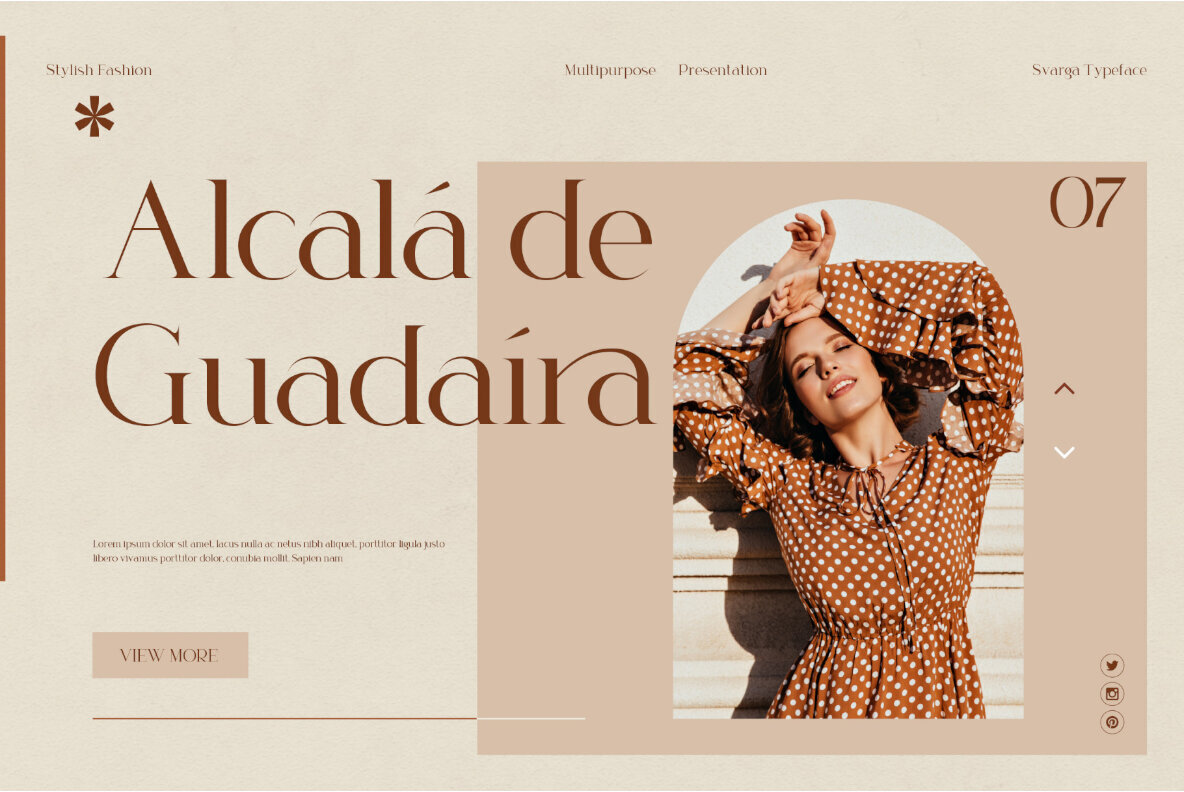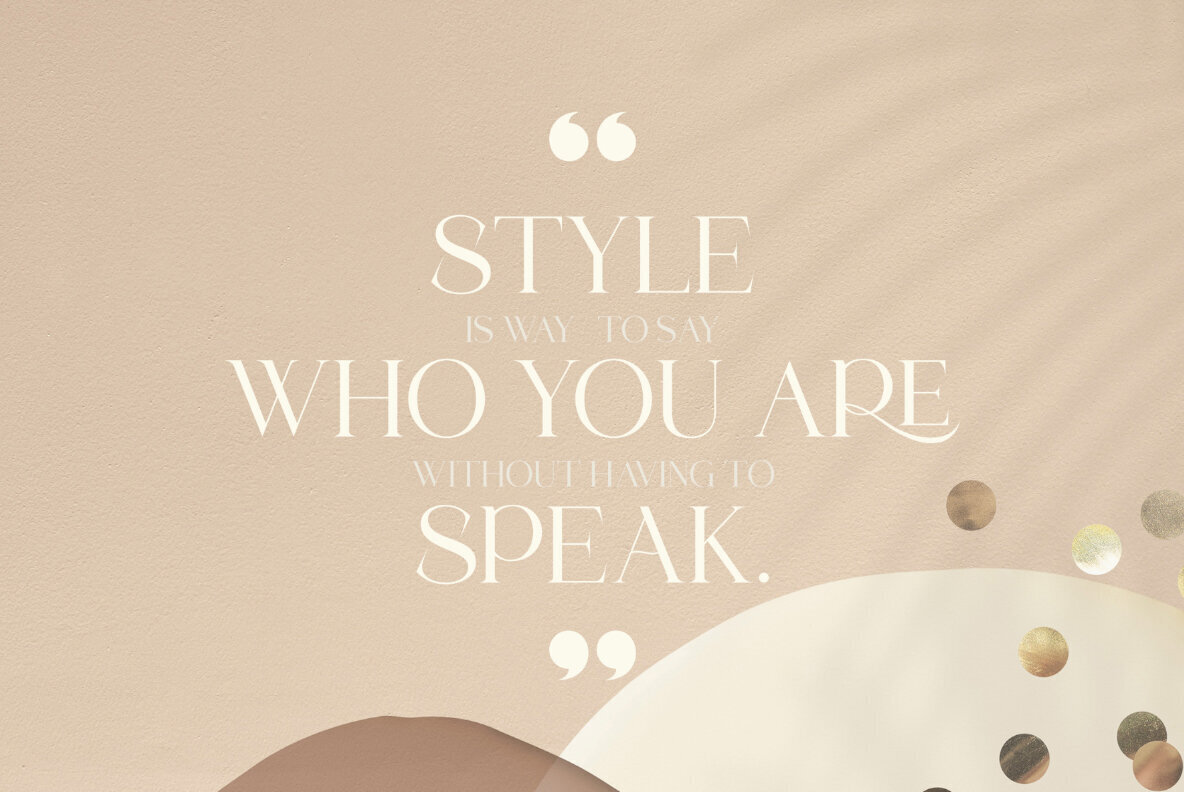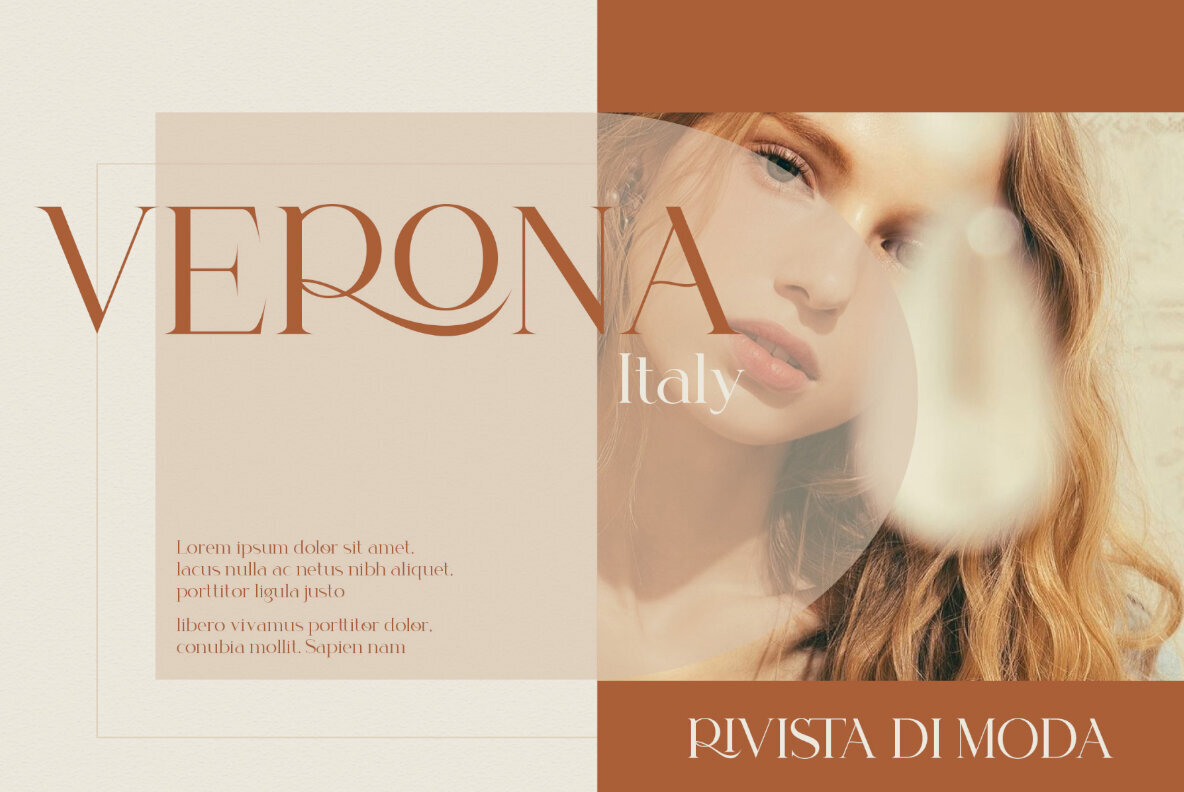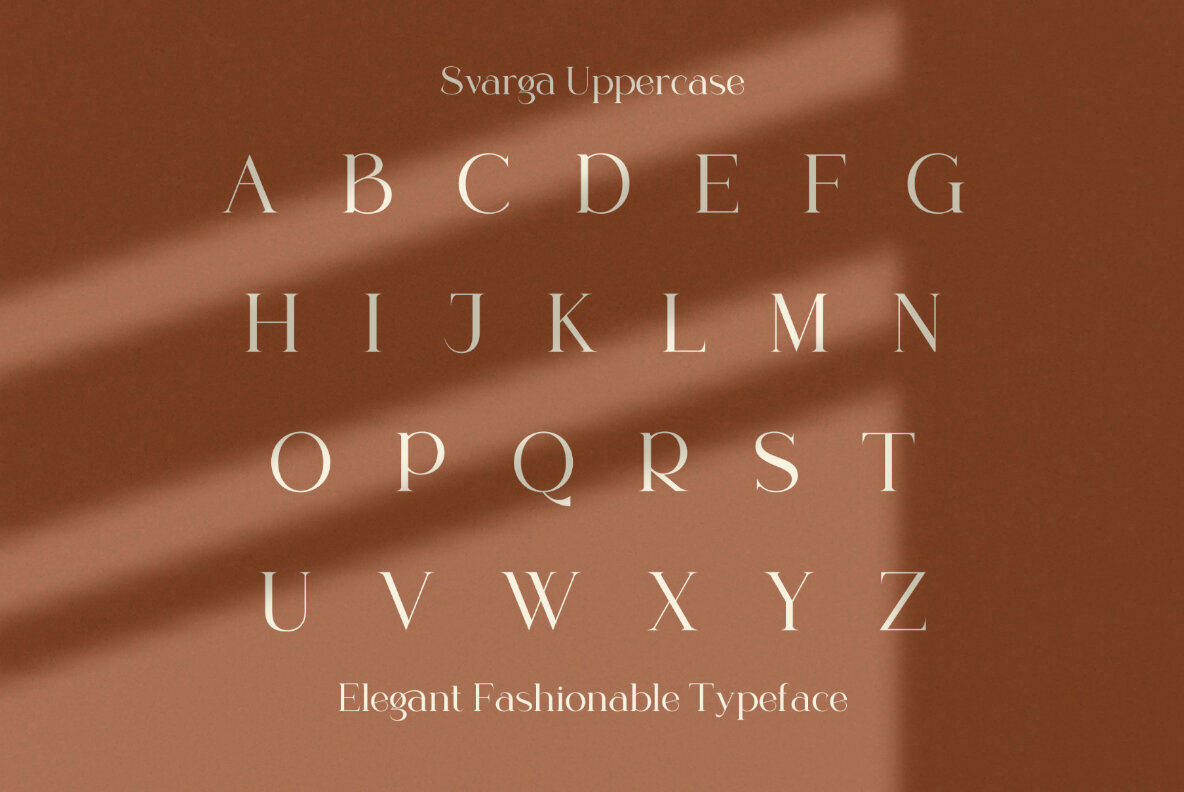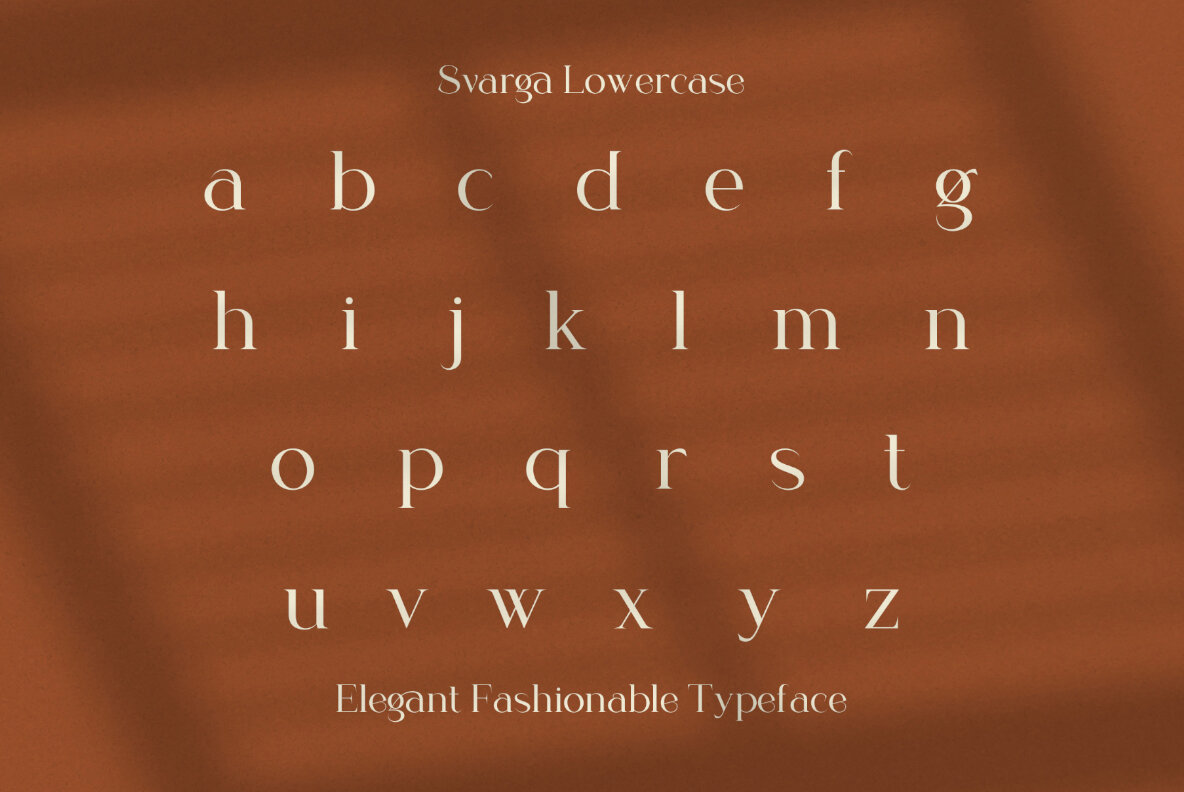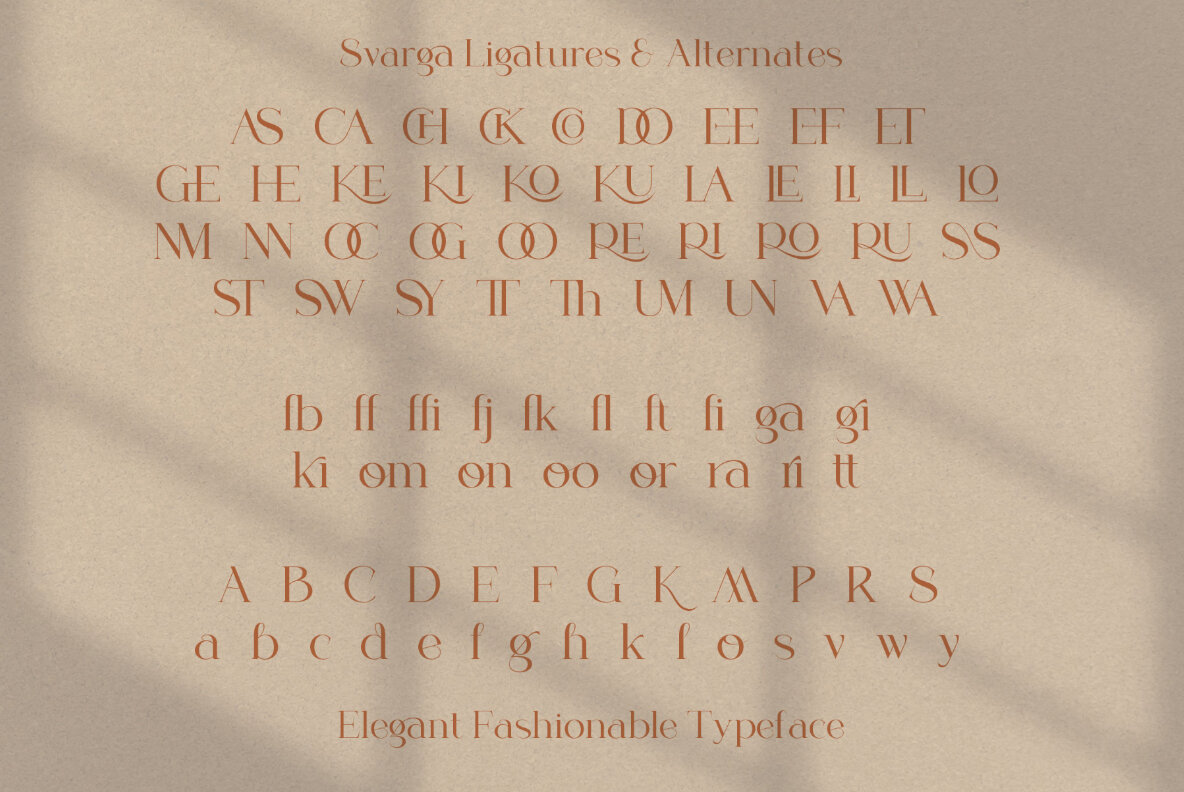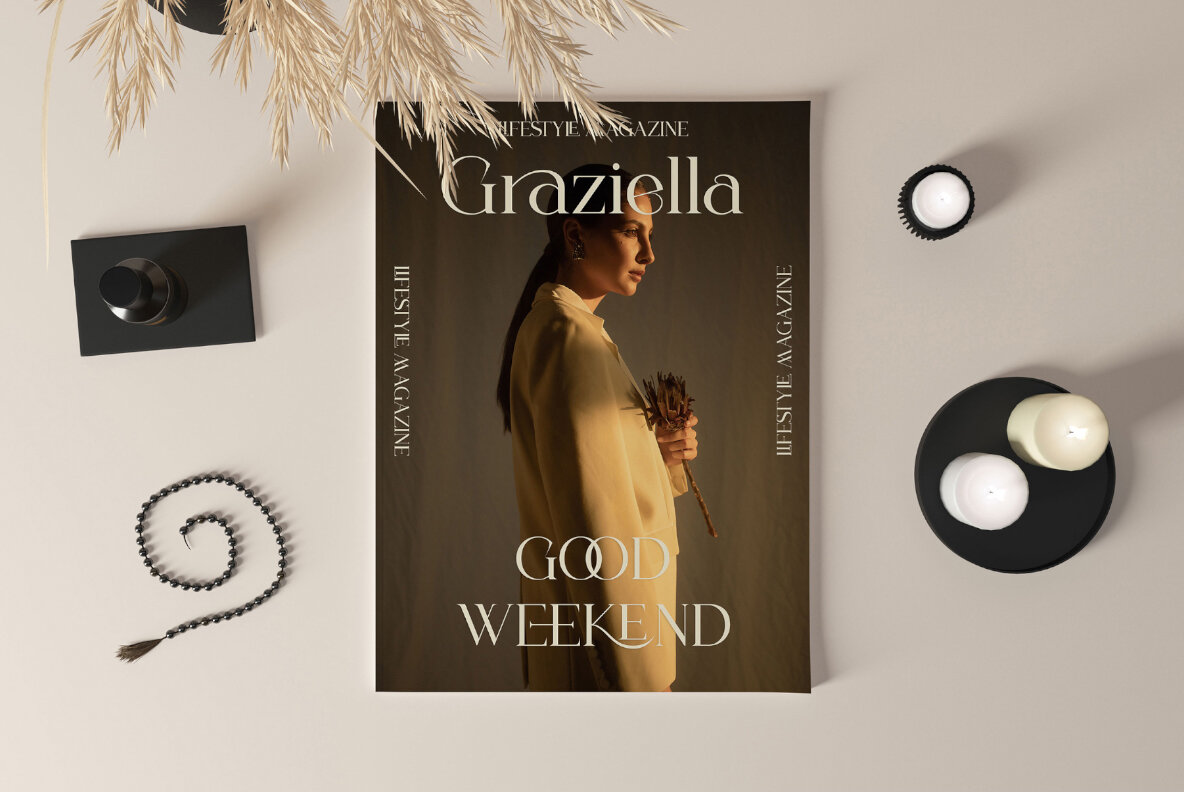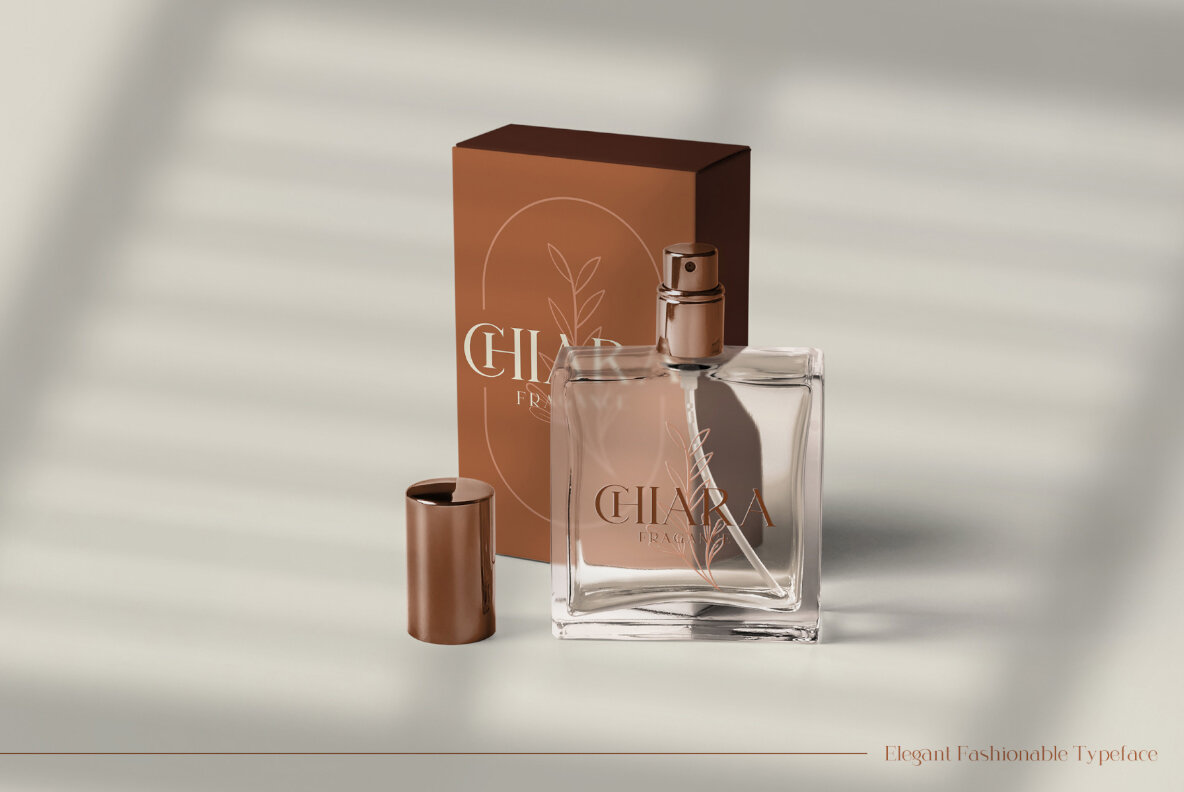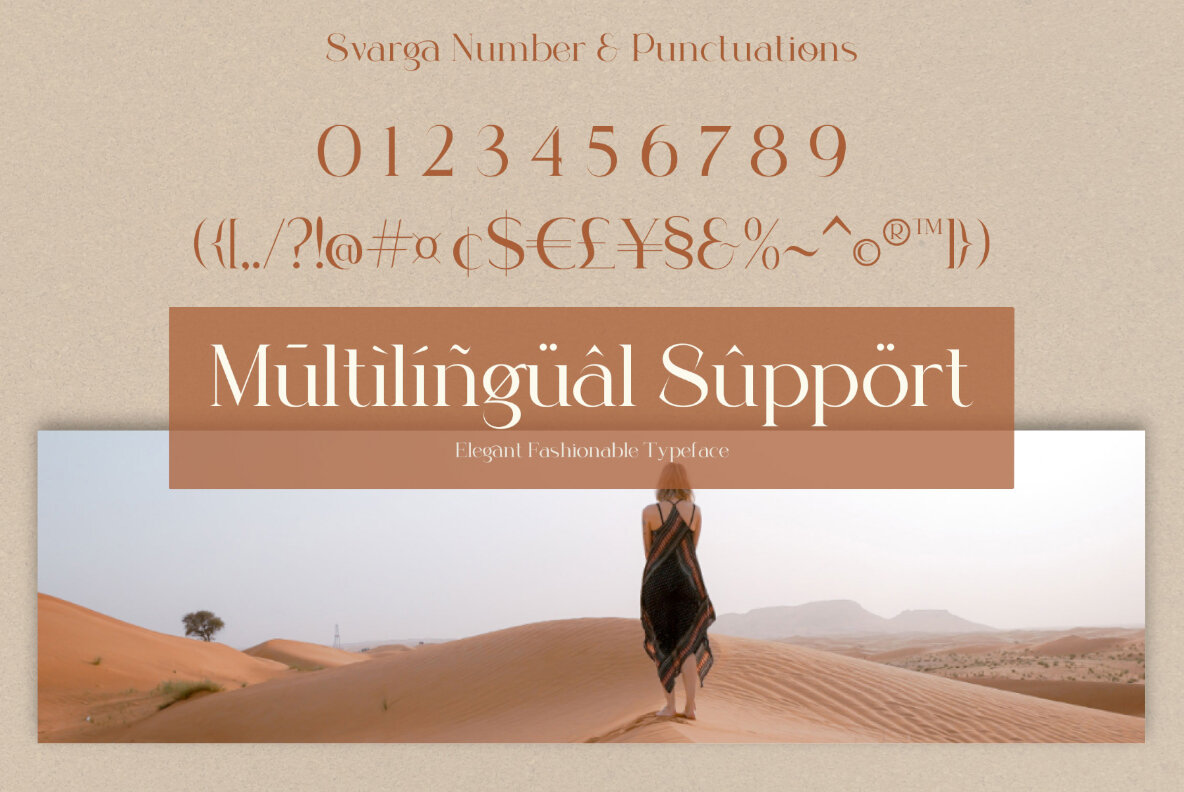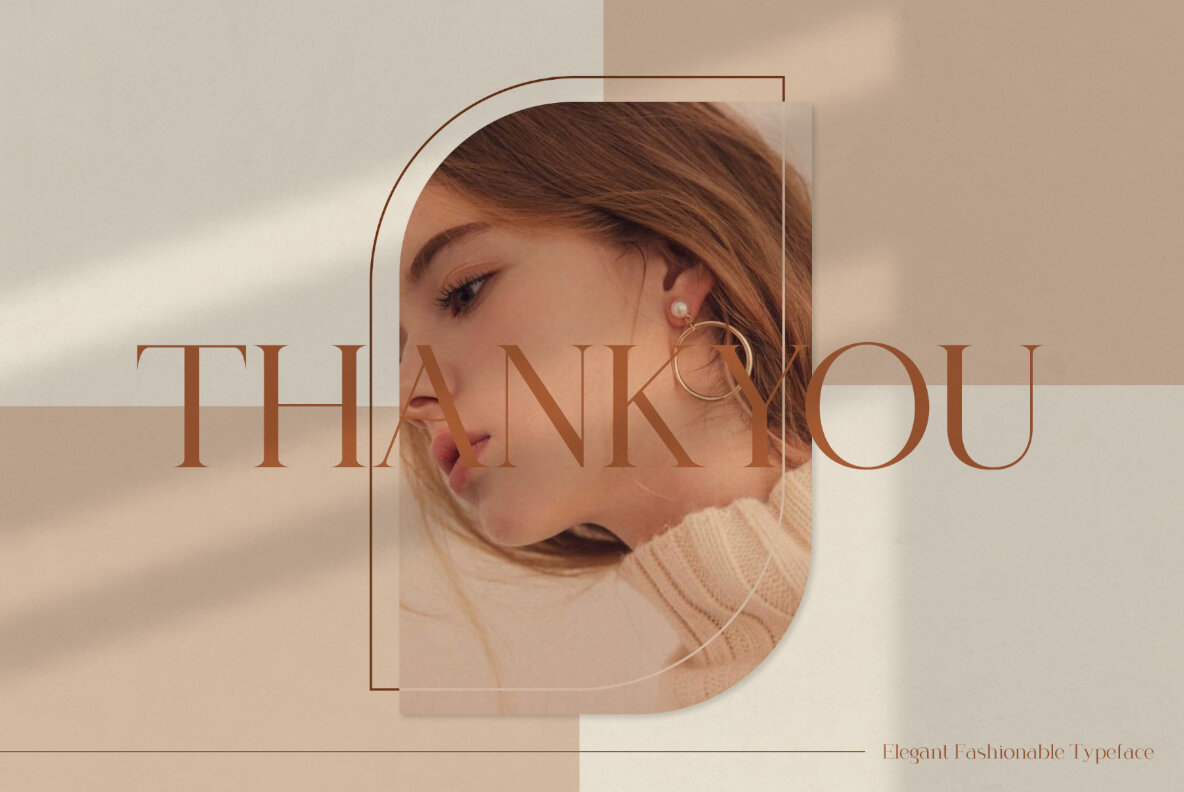
Svarga Typeface Font
Svarga Typeface Regular
Svarga Typeface, conceived by Ratna Krismawati, is an elegant serif font that blends modernity with nostalgia. This typeface is ideal for those seeking a sophisticated touch for logos, magazines, and social media. Svarga presents a unique opportunity for designers who aim to infuse their projects with class and style. Accessible in leading software such as Adobe Illustrator, Photoshop, InDesign, and Microsoft Word, Svarga ensures ease of use without additional design tools due to its PUA encoded characters. While images seen in previews are for illustration only, the typeface itself offers unmatched versatility for the discerning designer.Svarga: Elegant Typeface for Modern Designs
Features of Svarga Typeface